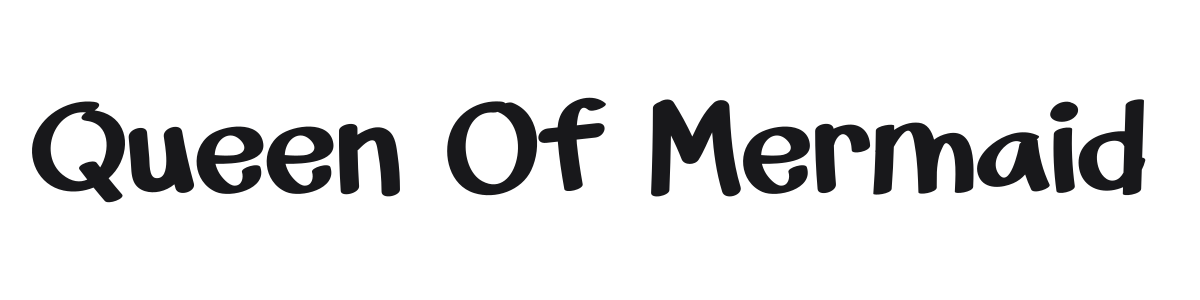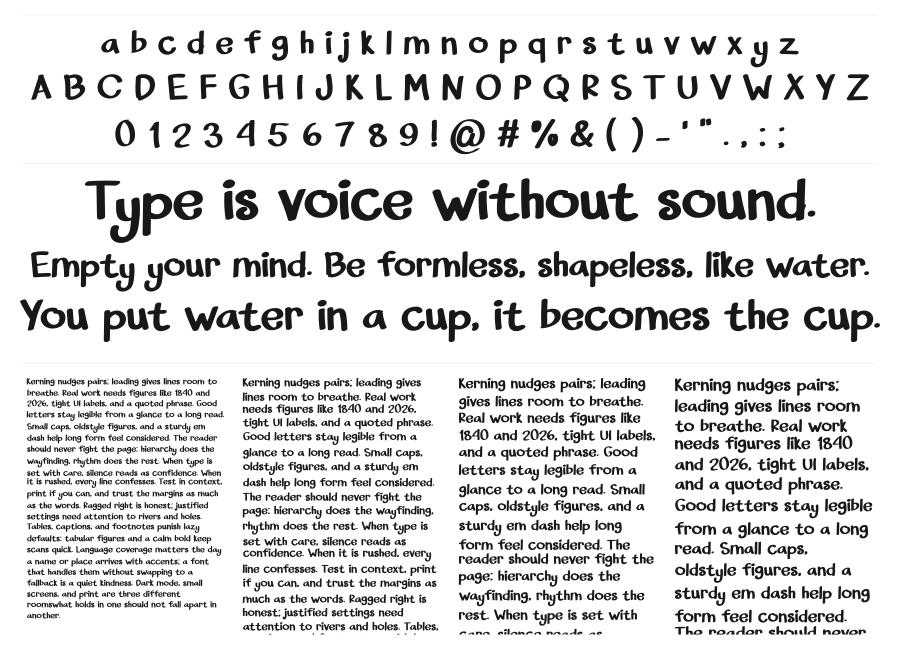
Queen Of Mermaid
by Green Sea Studio
Queen Of Mermaid is a bold casual script with thick rounded strokes and a loose, hand-drawn energy. The wide, bubbly characters carry an upbeat warmth that works naturally for children's products, beach branding, and playful packaging. It reads as handwritten without being precious about it.